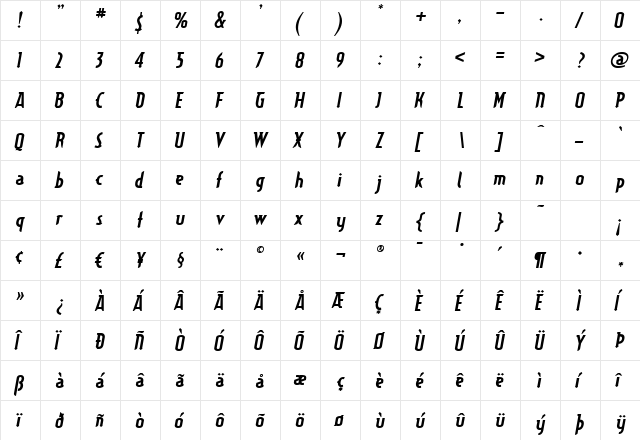
Typographiction2.1 B.I Regular Font Preview
Typographiction2.1 B.I Regular
Typographiction2.1 B.I Regular Font Details
Design Context for Typographiction2.1 B.I Typeface
Typographiction2.1 B.I takes a measured approach to typography — its balanced proportions and neutral character make it a reliable workhorse for both digital and print work.